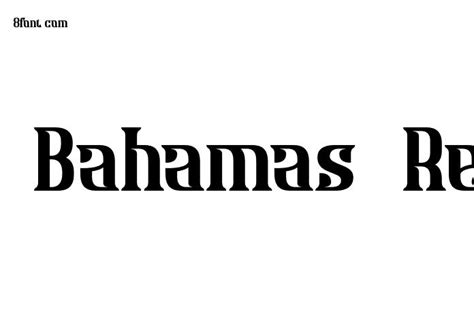
Unveiling the II Bahamas Family Font
II Bahama Family Font is a modern, clean, and elegant typeface, perfect for a wide range of design applications. Its versatility makes it a favorite among graphic designers, offering both style and readability. Whether you’re working on a website, a print project, or social media graphics, this font family can significantly elevate your design. The font’s design is known for its simplicity and sophistication, ensuring that your text looks polished and professional. It features a range of weights and styles, giving you ample options to create dynamic and visually appealing layouts. This font family is your go-to option if you’re looking to add a touch of elegance to your projects. Understanding the design elements of the II Bahama Family Font is crucial before you start using it. The font features a unique blend of modern and classic design elements, making it suitable for a wide range of applications. Its clean lines and balanced proportions make it easy to read, ensuring that your message is clear and concise. The font is designed with careful attention to detail, making it a great option for professional and personal projects. The font’s design elements include a variety of weights, from light to bold, making it suitable for headings, body text, and everything in between. We’ll explore these weights and styles later in the article. Its elegant design and versatility make it a must-have for any designer’s toolkit. Overall, the II Bahama Family Font is a timeless typeface that can enhance any design project. Let’s dig deeper into the characteristics and benefits of using this font family.
One of the primary benefits of the II Bahama Family Font is its exceptional readability. This font is designed to be easily legible, even at small sizes, making it an excellent choice for a wide array of content. Its clean lines and carefully crafted letterforms ensure that your message is conveyed clearly and without any distractions. It also offers a range of weights and styles, giving you the flexibility to create visually engaging and cohesive designs. From light weights for a delicate touch to bold weights for emphasis, this font offers a wealth of design possibilities. This font family is an excellent choice for a variety of projects, from websites and apps to print materials. Its design ensures that it will look great across different media and platforms. Another major advantage is its broad applicability. The II Bahama Family Font is suitable for everything from headings and subheadings to body text and captions. It is also suitable for a diverse range of design applications, including branding, advertising, and editorial design. This versatility ensures that you can use the font across multiple projects, creating a consistent and cohesive brand identity. The II Bahama Family Font is a highly adaptable and versatile typeface that can seamlessly integrate into your creative workflow. The II Bahama Family Font’s versatility allows it to be used in various design applications. Let’s dive deeper into some specific uses.
II Bahama Family Font: Styles and Weights
The II Bahama Family Font doesn’t just offer one style; it’s a whole family! This means you get a variety of weights, allowing you to create different visual effects and ensure your designs look exactly how you want them. The different weights also come with their own distinct personalities, adding depth and versatility to your design work. You can effortlessly switch between different styles to highlight essential information or maintain a consistent look throughout your project. Weights usually range from light to bold, with options such as regular, italic, bold, and sometimes even extra bold. Each style offers a different character, enabling you to highlight important text or create a visual hierarchy. The inclusion of italics, for instance, adds a touch of elegance and can be useful for emphasis or to denote titles and quotes. Each style has its own unique features. The lighter weights are perfect for body text or subtle design elements, while bolder weights are great for headlines or call-to-actions, ensuring they grab attention. This versatility makes the II Bahama Family Font suitable for many different applications. The wide variety of weights and styles of the II Bahama Family Font, makes it one of the most popular fonts. Let’s take a closer look at the different styles available. The fonts are typically offered in regular, bold, and italic versions. Some families include additional weights, such as light, medium, and black, each offering a unique visual appearance. Remember, the options will enable you to add visual interest to your design and control the visual weight of your text. Whether you’re working on a website, a print project, or social media graphics, you’re sure to find a style that fits your needs. Choosing the right style is crucial for effective communication. The II Bahama Family Font’s diversity makes it easy to find the perfect fit for your project.